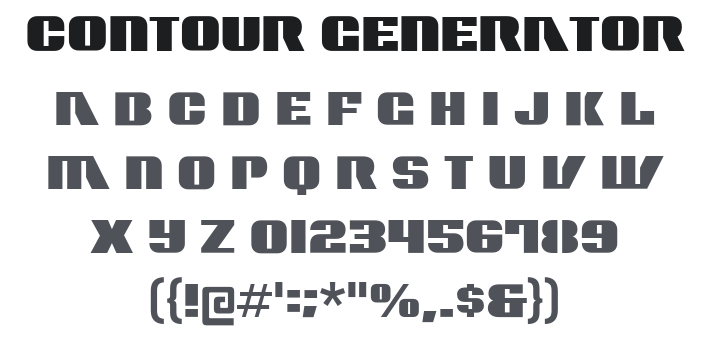
Contour Generator Font
About Contour Generator
Contour Generator is a quirky retro-techno display typeface born from the iconic RCA logo — three unconventional letters so alluring they inspired an entire alphabet. Its letterforms carry an odd, futuristic mid-century charm, somewhere between 1960s industrial signage and sci-fi optimism. Great for vintage tech branding, retro-futuristic posters, record label aesthetics, and bold novelty headlines.